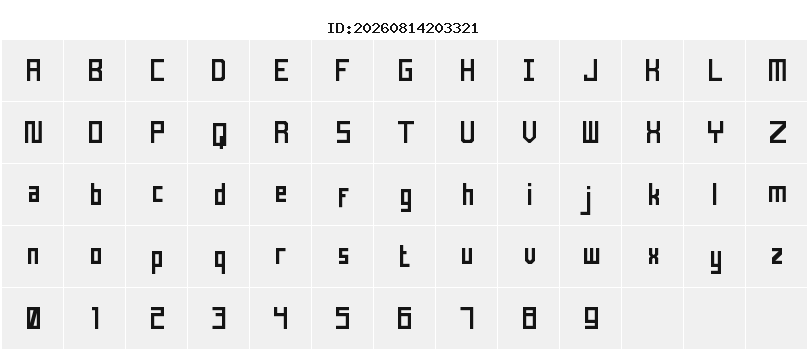
Statix Preview
• Font Name: Statix
• Font ID: Statix:Version 1.00
• Full Font Name: Statix
• Version: Version 1.00 September 19, 2011, initial release
• PostScript Name: Statix
• Character Count: 76
About Statix.ttf
Statix.ttf is a modern, elegant sans-serif font designed for ultimate readability and visual harmony. Perfect for branding, headlines, web design, and print materials.